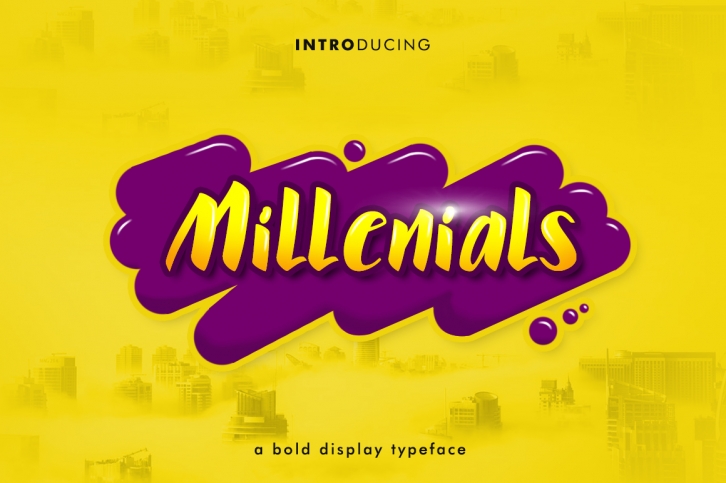
Millenials is an aptly named typeface, completely suitable for your on trend and current design scapes.  This bold and stunningly crafted font is perfect for wide range of displays.